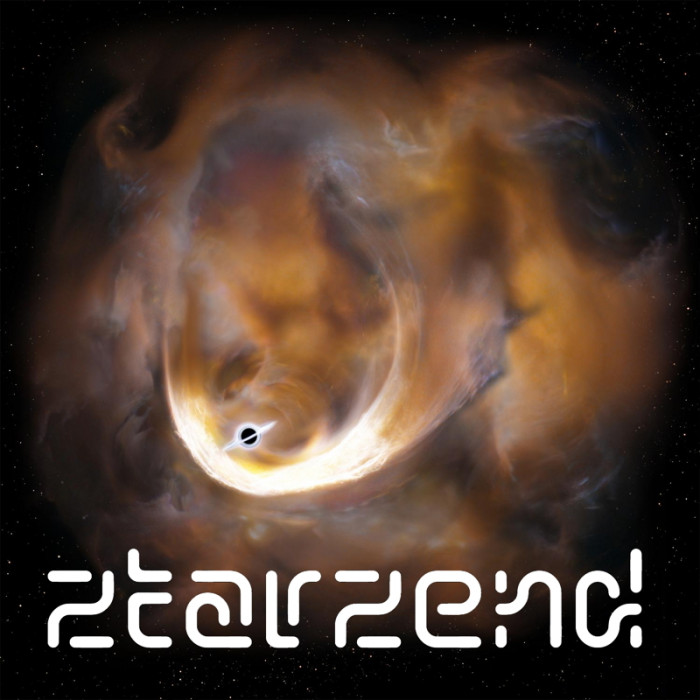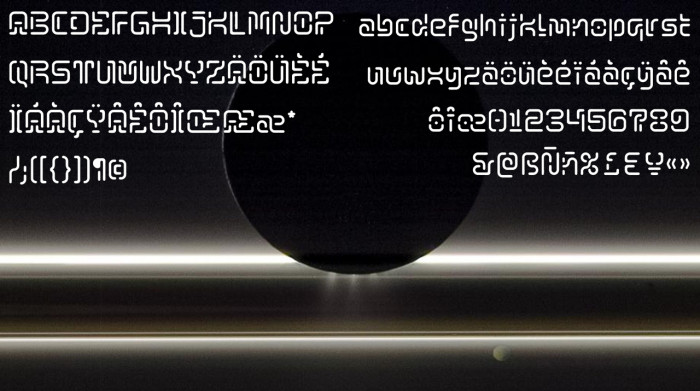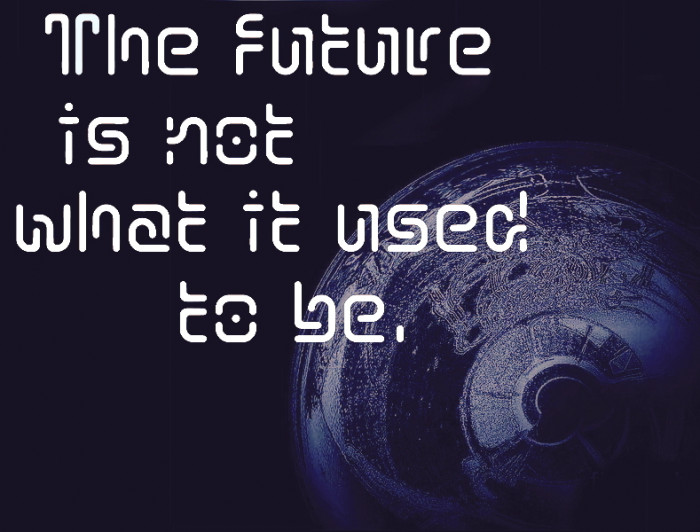
Consequences of the FutureComp brainstorm. Based -in a certain way- on one early version of Inside by Dmitriy Sychiov.
Wow, it's so cool that my font inspired you to another even cooler font! And I wanted to remove that font, because I didn’t like it and could not read it well. It’s so good that I didn’t! I would add a neon tag to this.
Just noticed two creatures at the end of the font - it's very cute. People should better relate to each other and cooperate more often - if these aliens can - why can't we? I would also say that you can work a little bit with 4 - she loves the curved left side.
she = it.
In Russian, the numbers are feminine.
@Dmitriy Sychiov: I've try the changes on 4, but don't like me. Thanks for your comments and support.